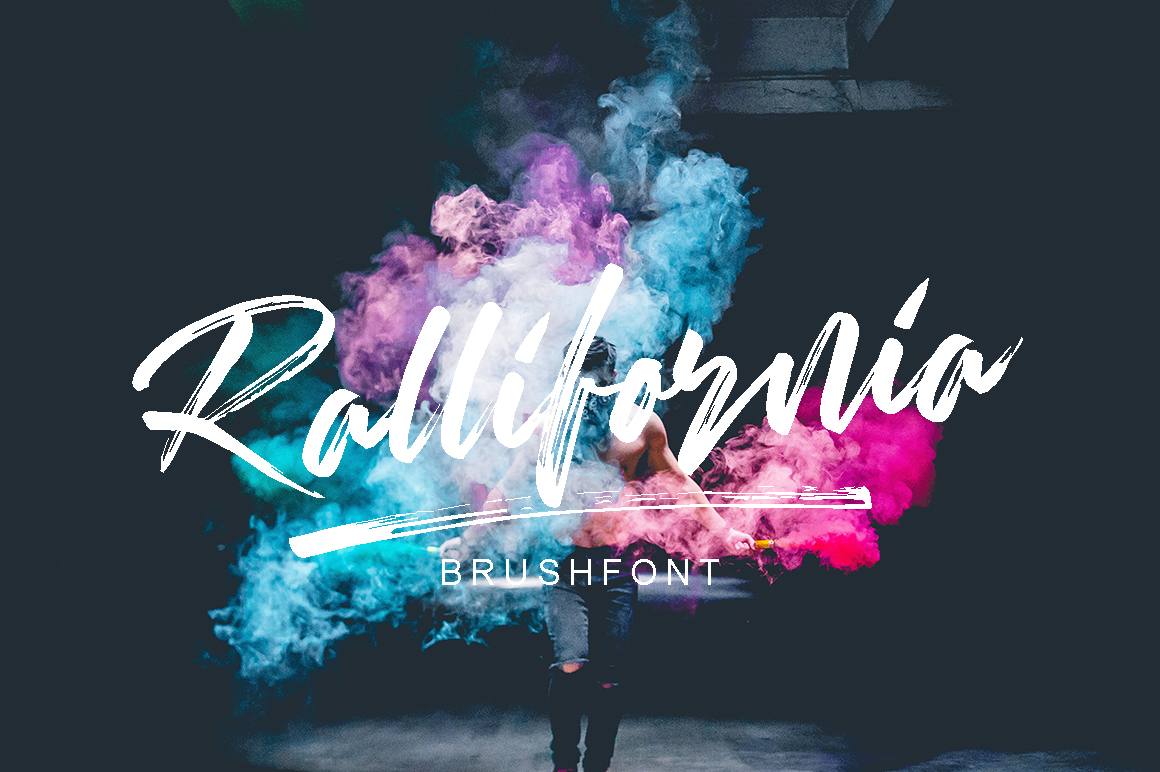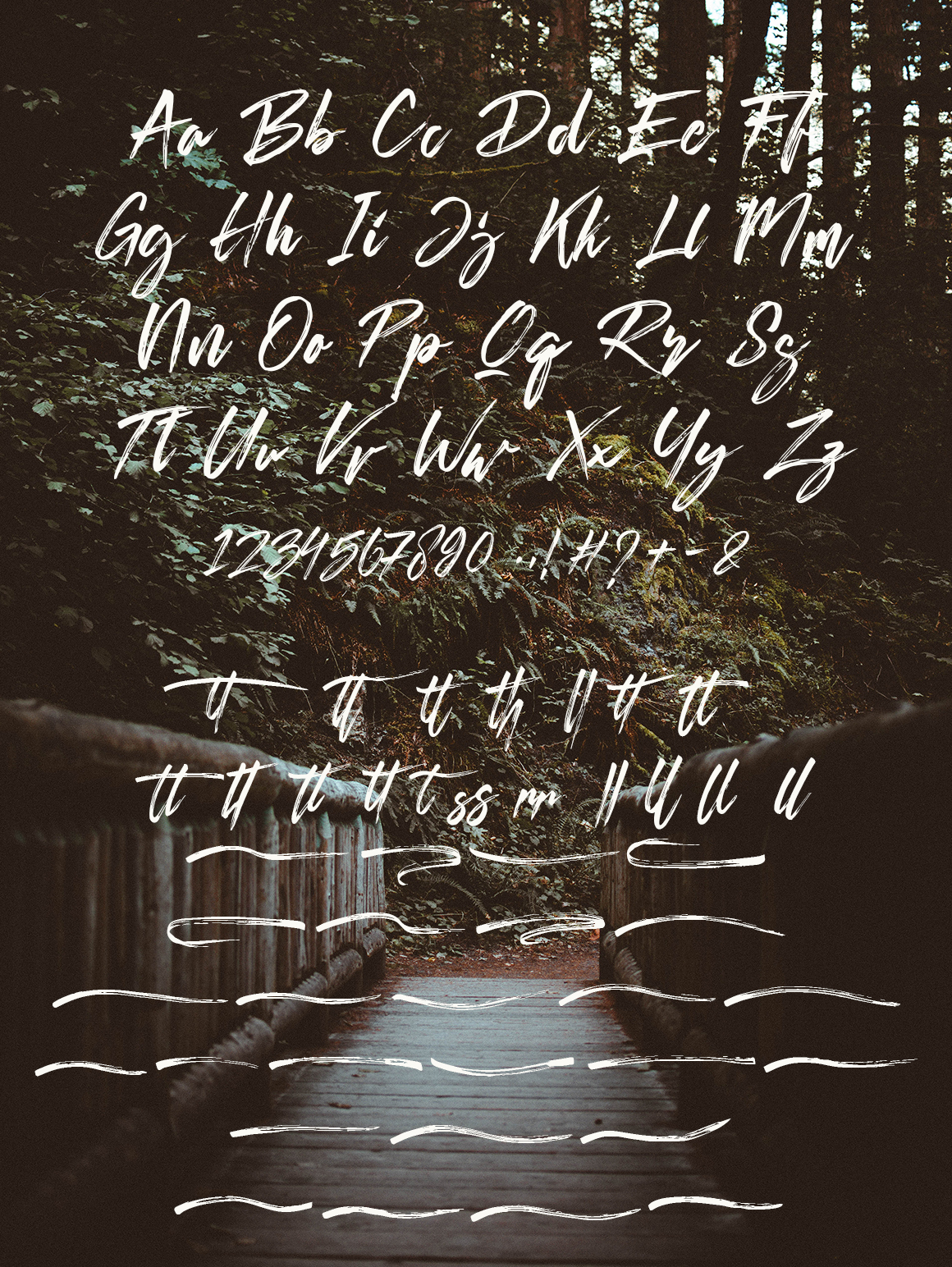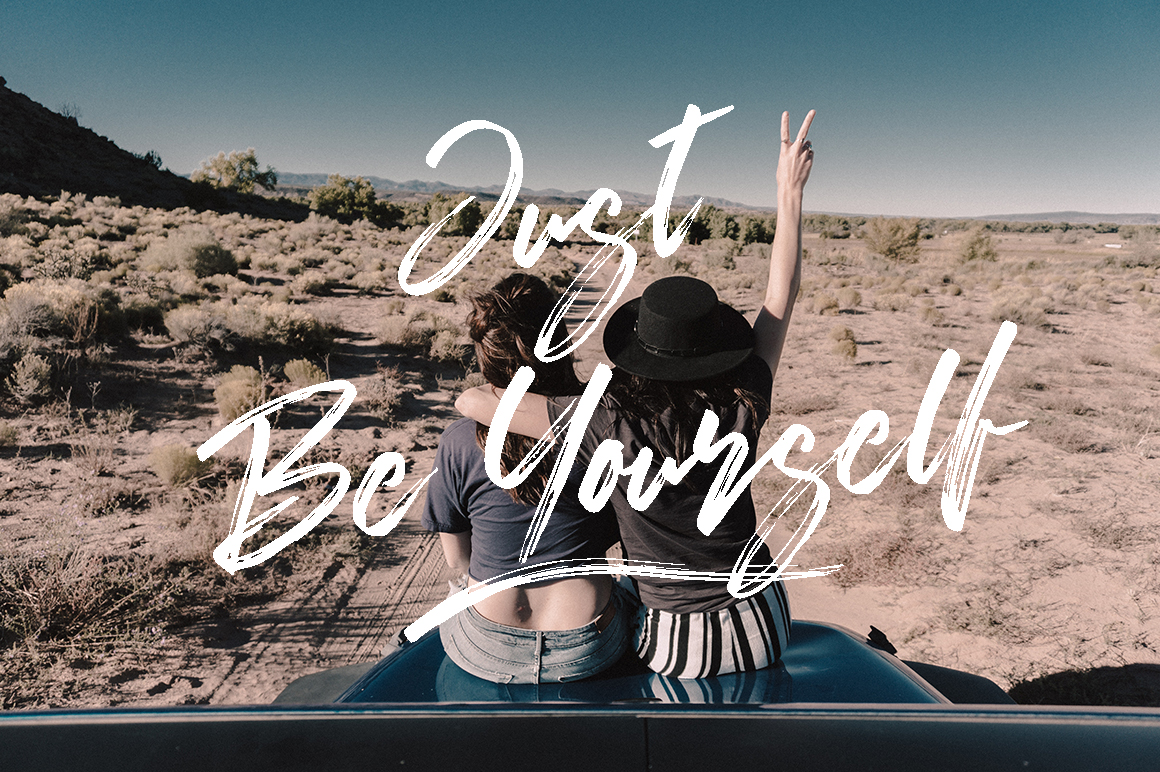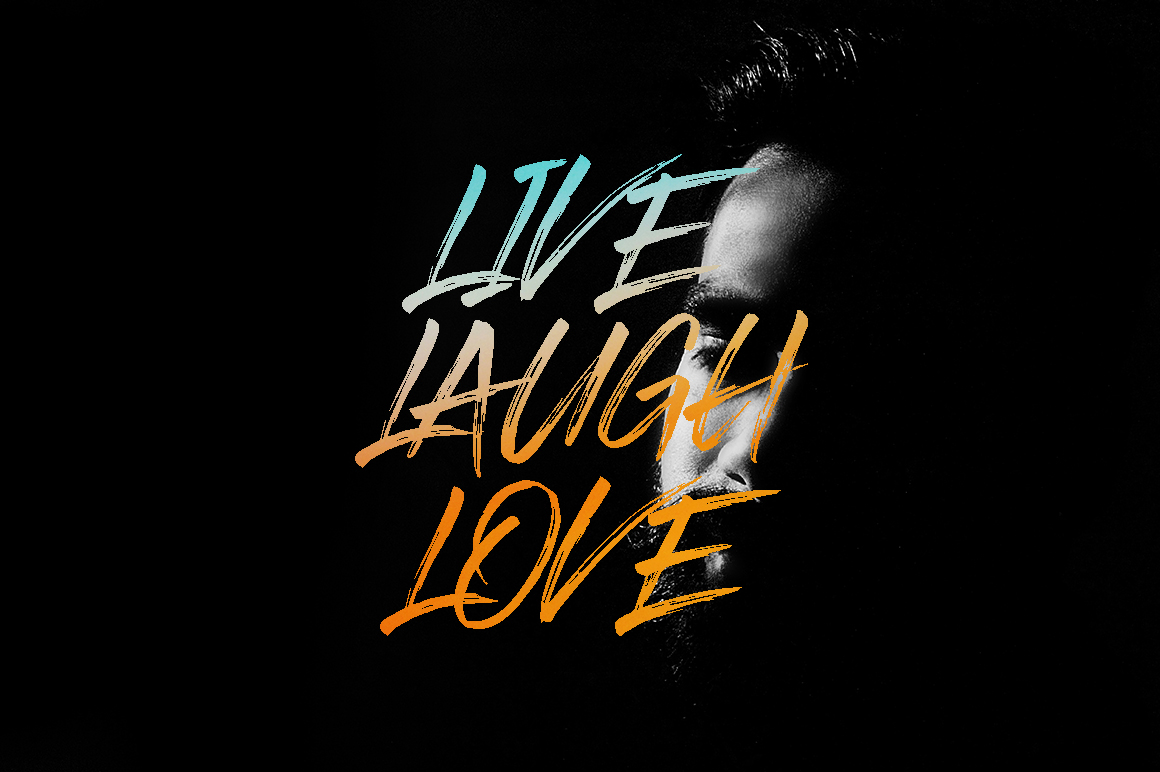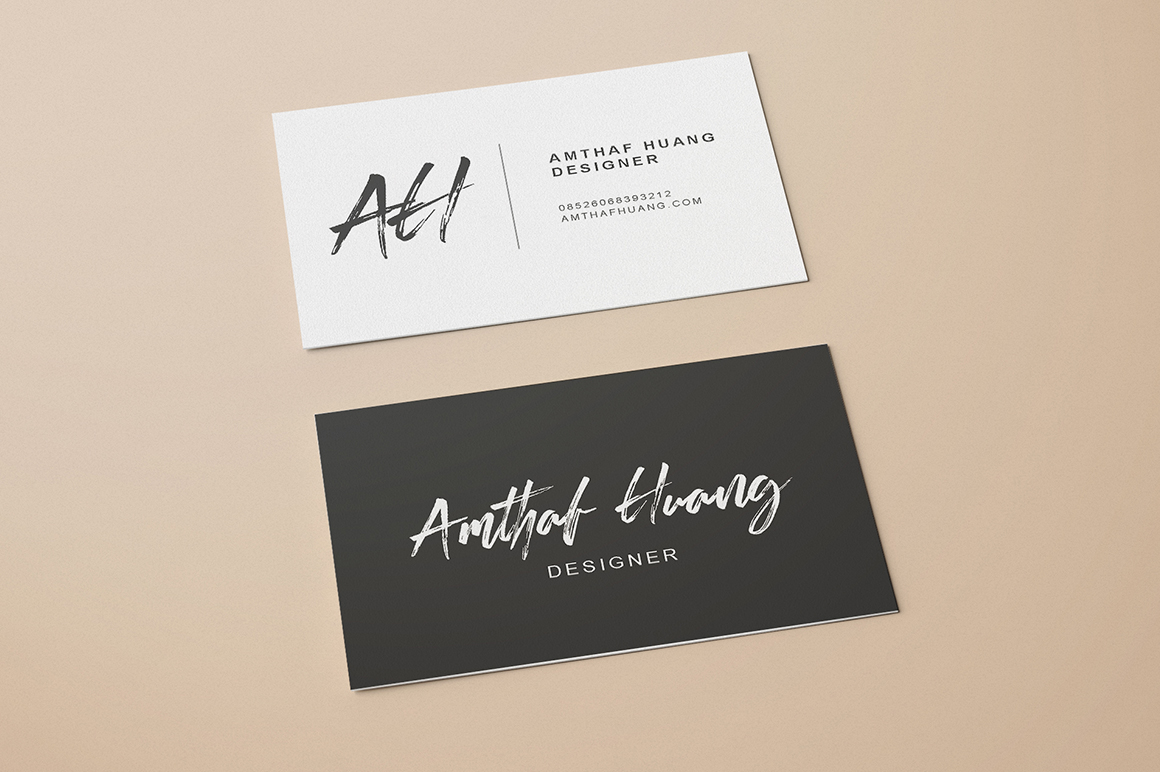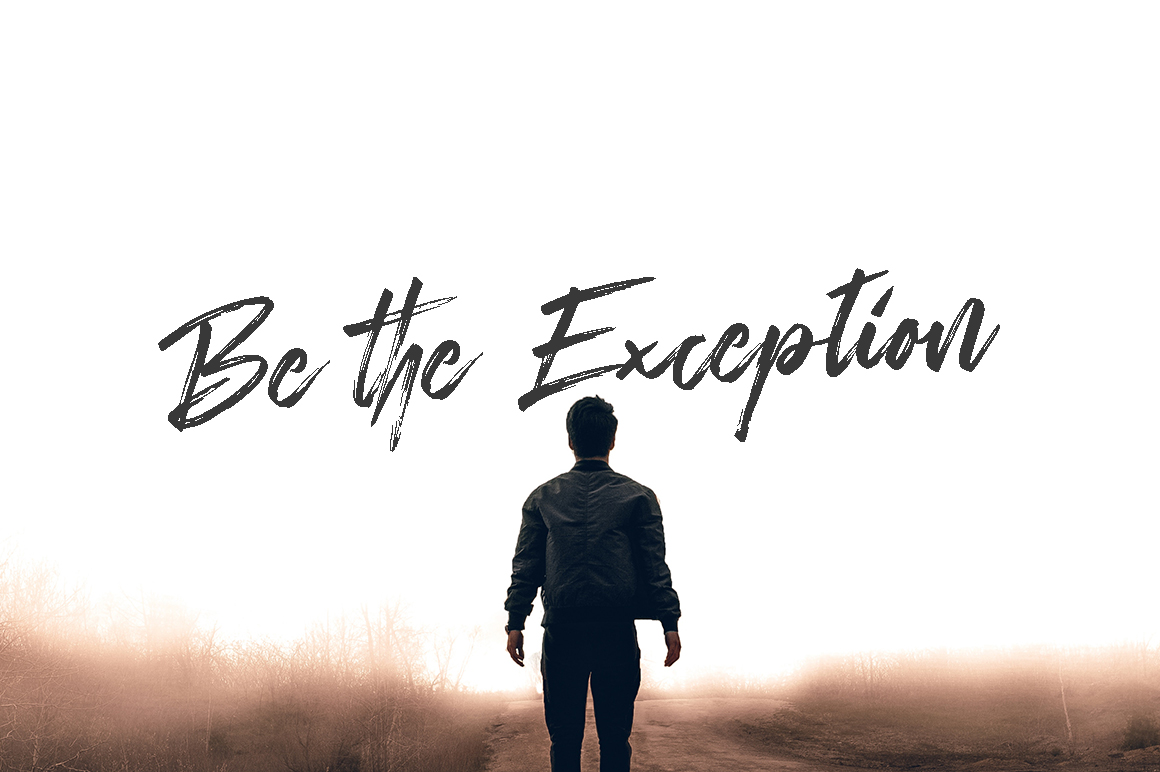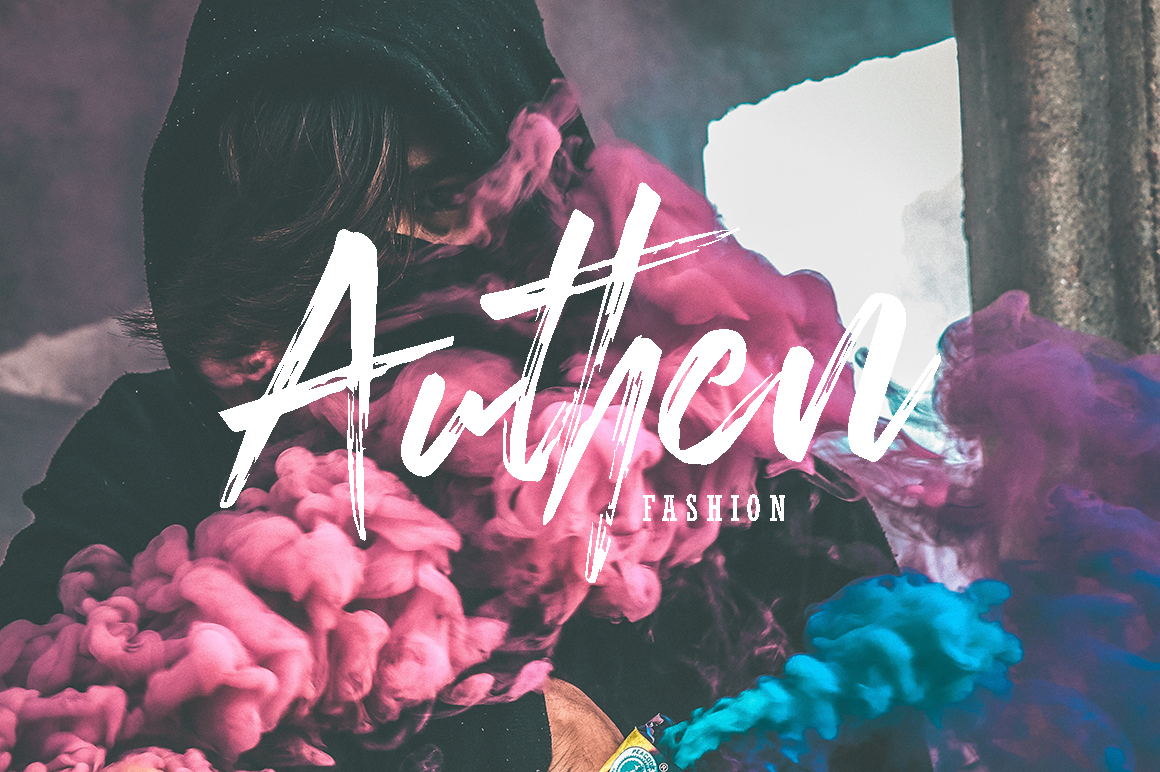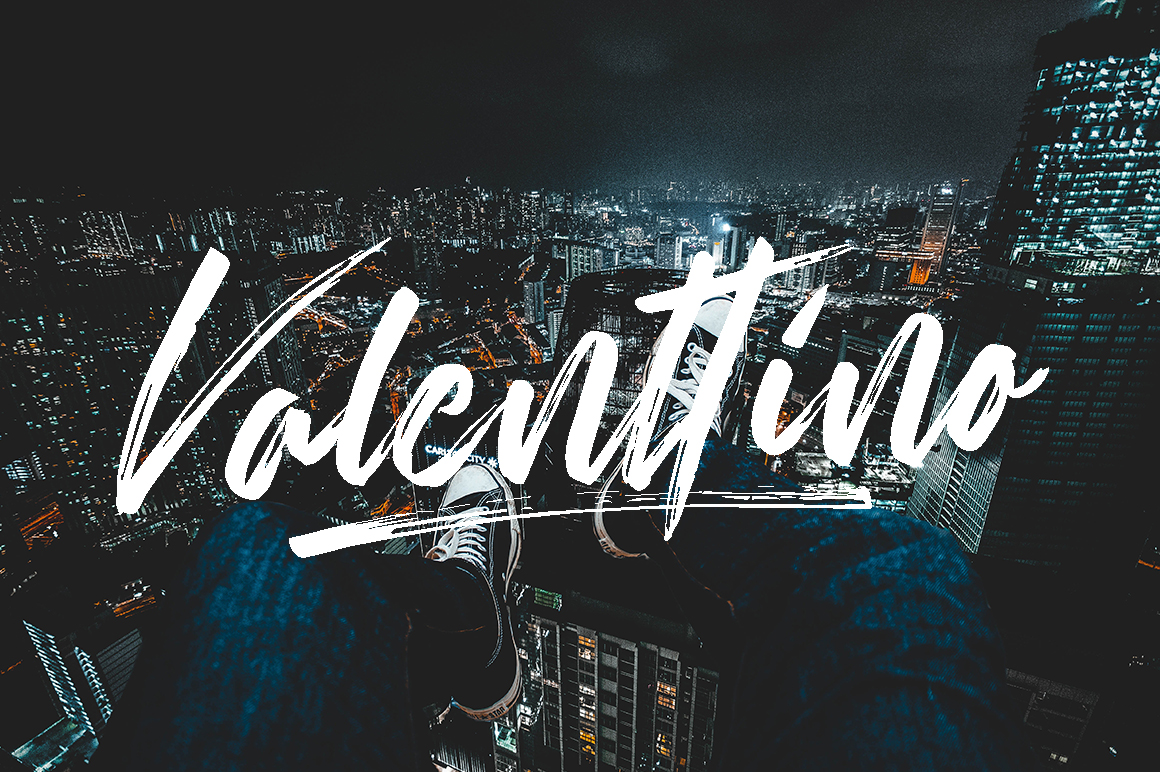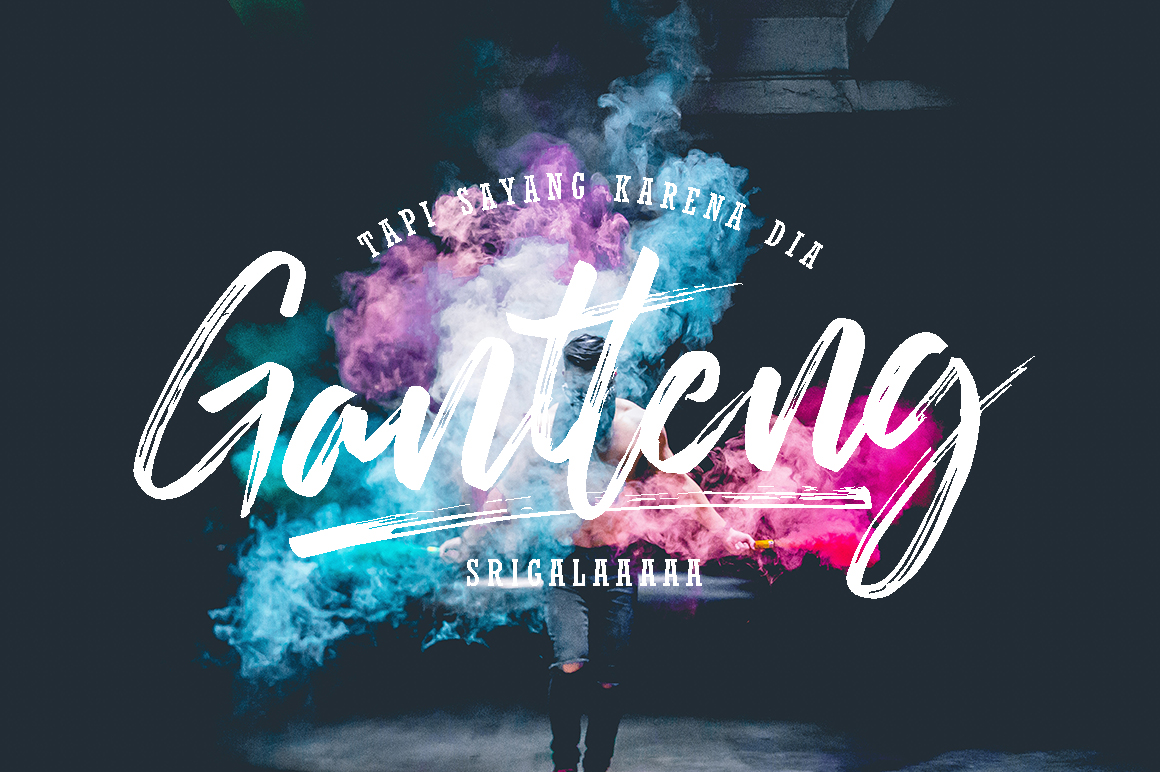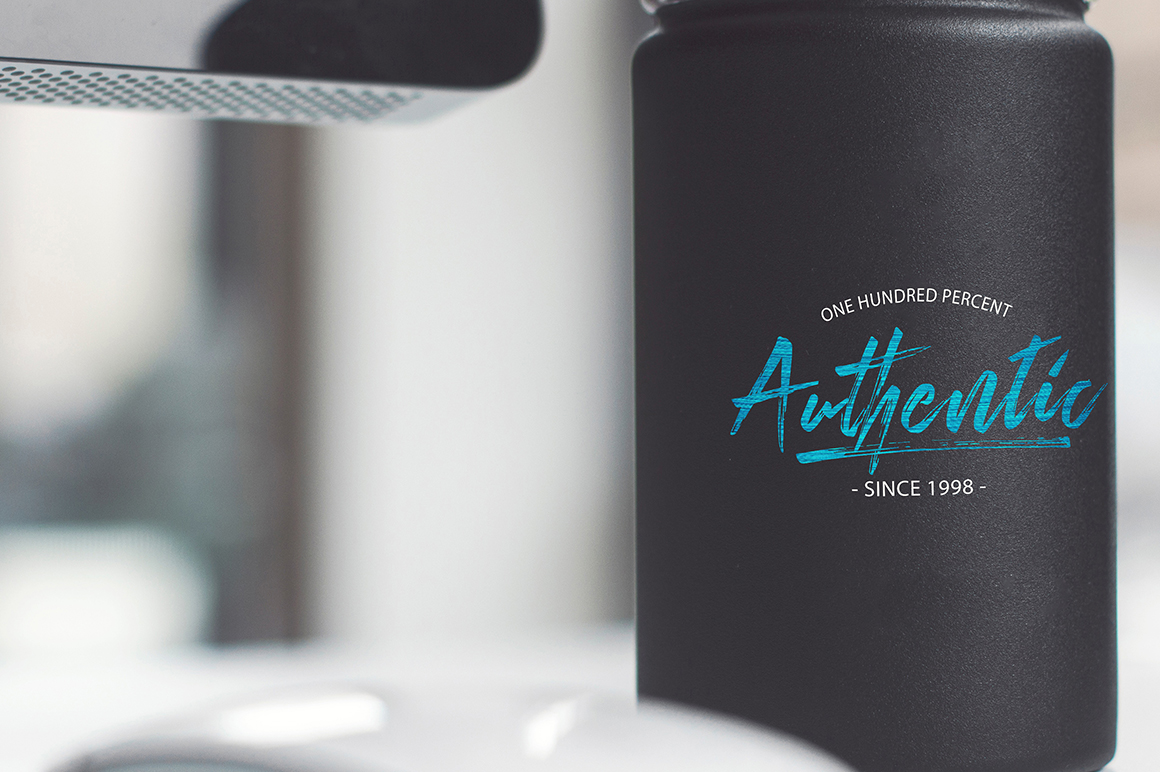
HomeScript FontsRallifornia Font Script Fonts Rallifornia Font FacebookXPinterestWhatsApp Rallifornia Font Poster 2 Rallifornia Font Poster 3 Rallifornia Font Poster 4 Rallifornia Font Poster 5 Rallifornia Font Poster 6 Rallifornia Font Poster 7 Rallifornia Font Poster 8 Rallifornia Font Poster 9 Rallifornia Font Poster 10 About Rallifornia Font Rallifornia is a stylish brush with a classical style. DOWNLOAD ON CREATIVE FABRICAThis font is sold and delivered by Creative Fabrica. Font Canyon may earn a commission if you buy through this link. People also explored Unicorn Star Monogram Font Simple Boho Font Sailor Bay Font Sunrise Wedding Font Children Teacher Font The Minthline Script Font Butter Heart Font Bisson Font Heather True Royal Bella Canvas 3001 372 0 TagsRallifornia Font Previous articleFunntastic FontNext articleMaterime Font LEAVE A REPLY Cancel reply Comment: Please enter your comment! Name:* Please enter your name here Email:* You have entered an incorrect email address! Please enter your email address here Website: Save my name, email, and website in this browser for the next time I comment. Personal Use Free Sarwendah Personal Use Free Read more about this font Bosque Font Personal Use Free Read more about this font William Personal Use Free Read more about this font Monogram Calligraphy Personal Use Free Read more about this font BLOG To increase your work productivity, choose the most readable fonts. In today's fast-paced work environment, where digital communication and information consumption are integral to our daily routines, the choice of fonts can significantly impact... How to Install and Use Fonts on Windows, macOS, and Web Projects Modern Sans-Serif Fonts That Brands Love in 2025 How to Cut Any Font on Cricut: Convert a Font to SVG (Free)